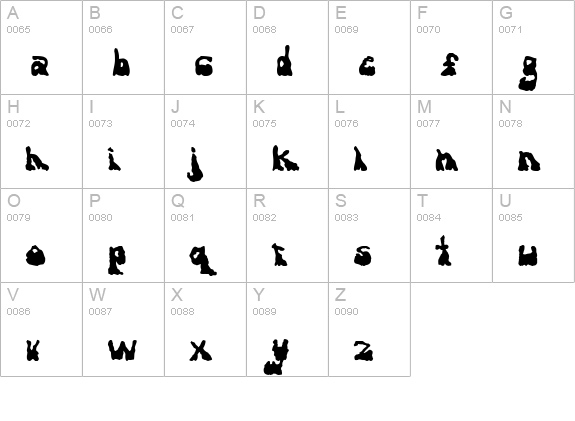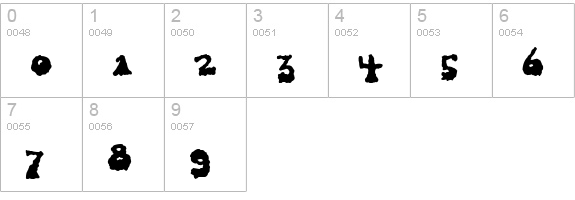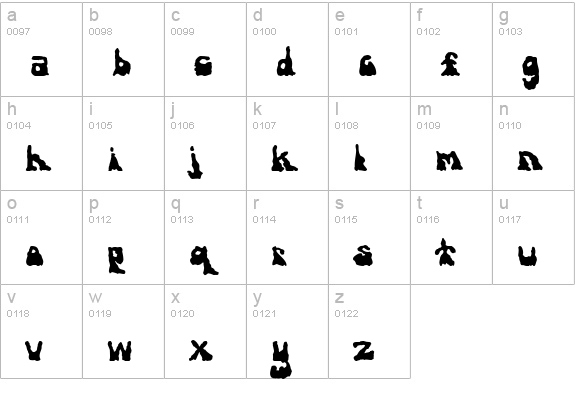
antiestablishment Font Details
The antiestablishment font breaks away from traditional design conventions, embracing a rebellious and nonconformist spirit. Its edgy and bold style challenges the status quo, making a powerful statement against the establishment. With its unconventional letterforms and striking appearance, this font demands attention and refuses to blend in with the crowd. Embodying a sense of defiance and independence, the antiestablishment font is perfect for projects that seek to challenge norms and spark conversations. Whether used in posters, social media graphics, or branding materials, this font adds a touch of rebellion and individuality to any design. And the best part? This unique and impactful antiestablishment font is freely available for download at FontsMarket.com, allowing you to unleash your creativity without any constraints. Stand out, make a statement, and download the antiestablishment font today to infuse your designs with a bold and rebellious energy.